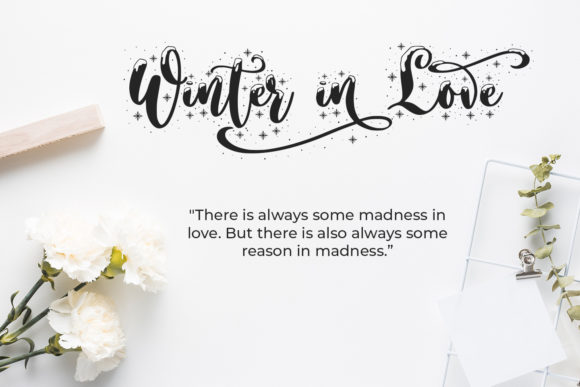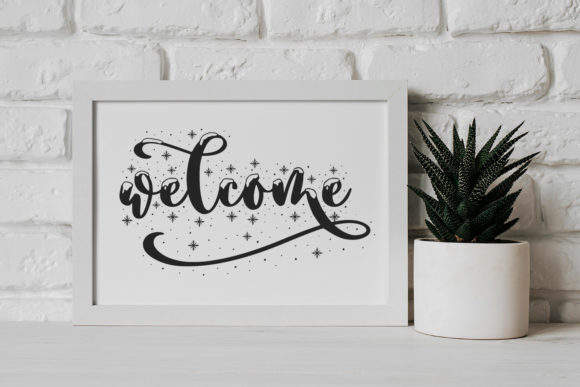
Snowember Font
db-ku.com - Script & Handwritten -- Snowember is a carefully designed, modern calligraphy font with a snowy effect. It is great for titling, headline, logo, t-shirt designs, mugs, tote bag designs, cards, banners, social media, and anything of craft projects.